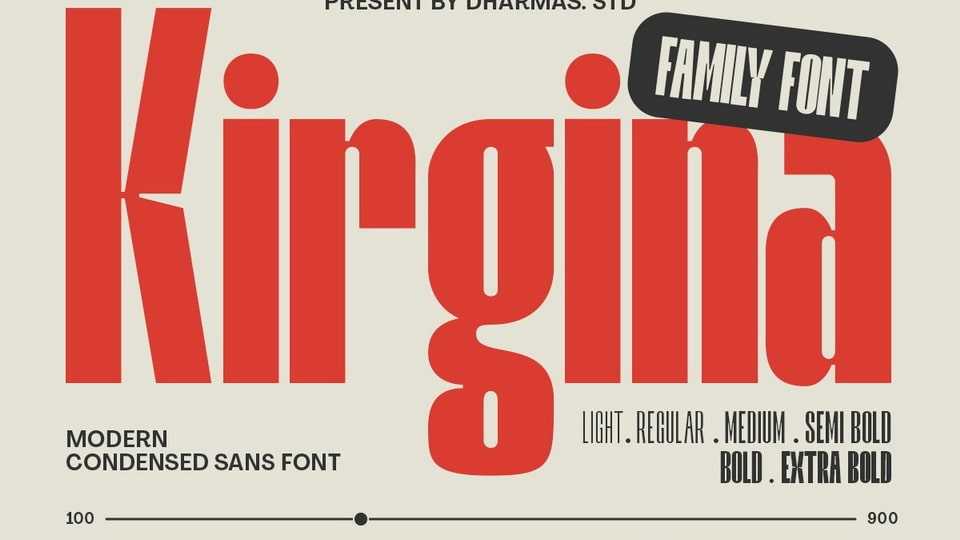
Download Kirgina font, a condensed sans-serif typeface created to be used for bold titles with distinctive shapes in a display font way to make it legible for contemporary use.